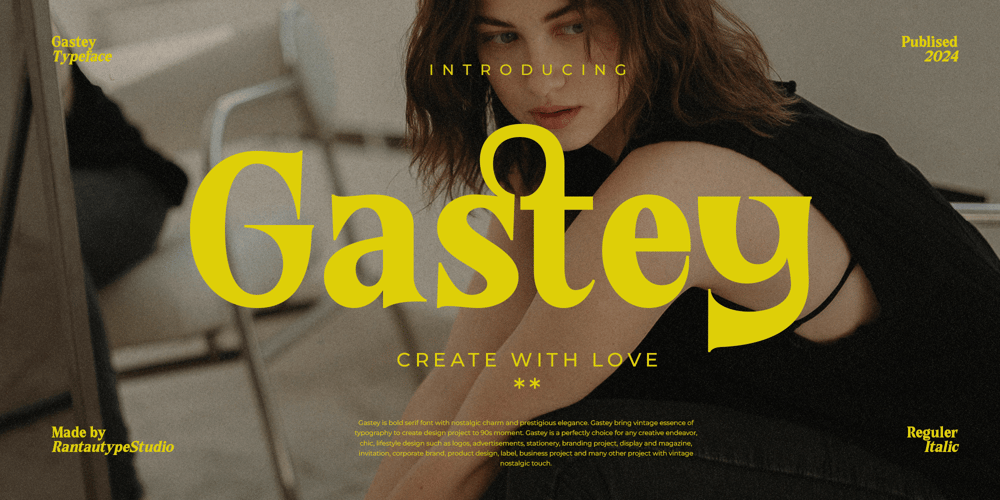
Gastey
Gastey font
Gastey Font Family was designed by Yudi Pratama Chandra and published by RantauType. Gastey contains 2 styles and family package options. Gastey is bold serif font with nostalgic charm and prestigious elegance. Gastey bring vintage essence of typography to create design project to 90s moment.Gastey is a perfectly choice for any creative endeavor, chic, lifestyle design such as logos, advertisements, stationery, branding project, display and magazine, invitation, corporate brand, product design, label, business project and many other project with vintage nostalgic touch.What you have: Standart Glyphs Numberial and Functional Ligature and alternate Works on PC & Mac Simple installations Accessible in Adobe Illustrator, Adobe Photoshop, Adobe InDesign, even work on Microsoft Word. Fonts include multilingual support for: Afrikaans, Albanian, Basque, Bemba, Bena, Breton, Catalan, Chiga, Cornish, Danish, Dutch, English, Estonian, Filipino, Finnish, French, Galician, German, Icelandic, Indonesian, Irish, Italian, Kinyarwanda, Luxembourgish, North, Norwegian, Portuguese, Romansh, Rombo, Rundi, Scottish, Gaelic, Sena, Shambala, Shona, Soga, Somali, Spanish, Swahili, Swedish, Swiss, German.Thank you for your purchase!Hope you enjoy with our font!